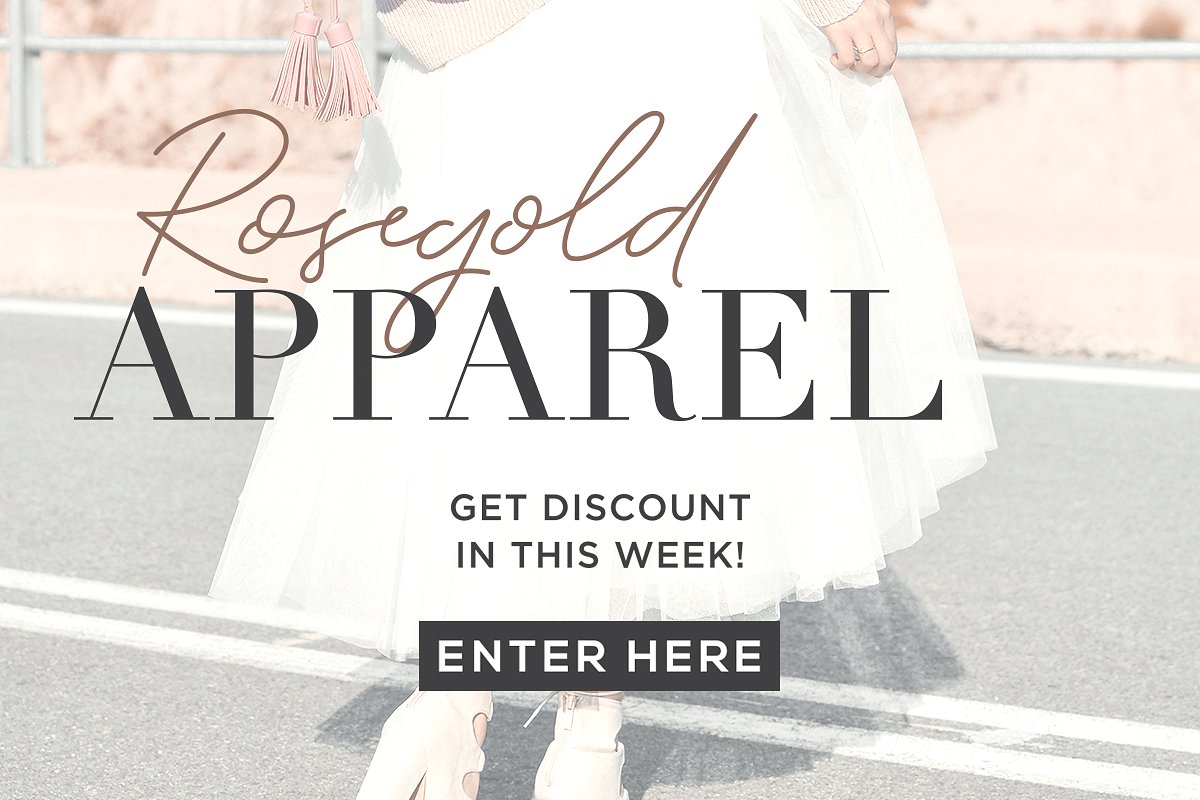
Serenity A Natural Signature Style Font, Loaded With Awesome Opentype Features, Including 39 Natural Looking Ligatures, Bold Family, As Well As A Full Alternate Upper And Lowercase Character Set And.
A Modern Handwriting Typeface, If You Are Looking For A Handwriting Font, Then It Is!